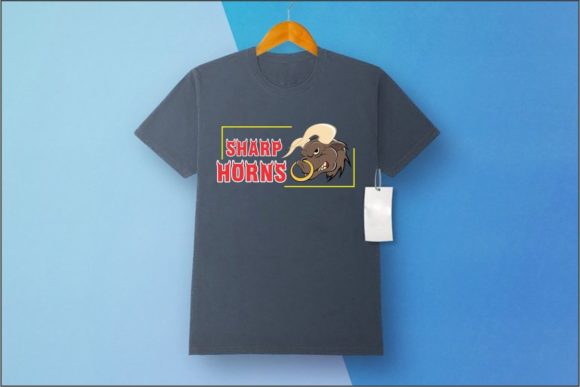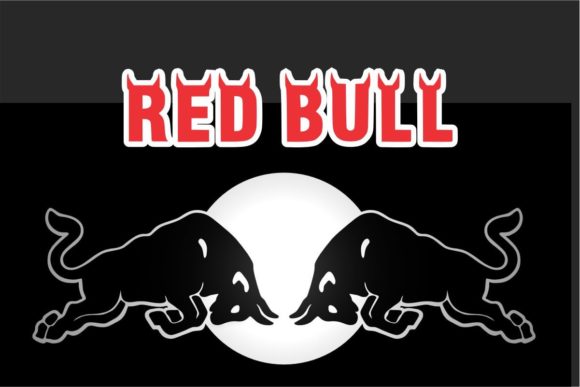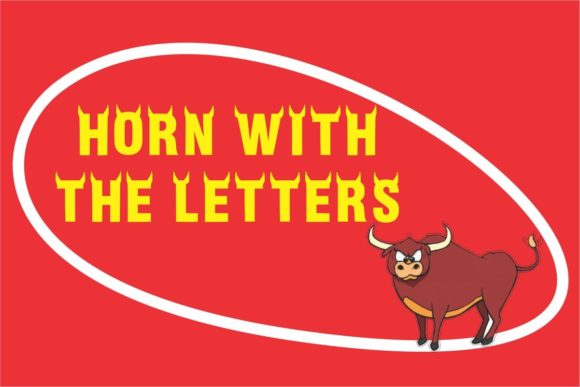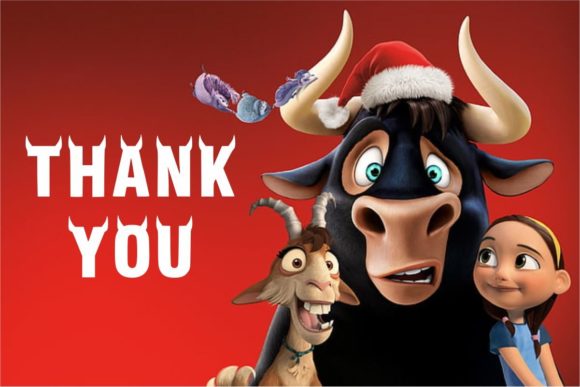
Introduction to Sharp Horns Font
Sharp Horns is a horn-style display font that symbolizes strength and invulnerability.
You can use it for design themes, logos, t-shirts, backgrounds, and more Add this font to your favorite creative ideas and see how it comes to life.